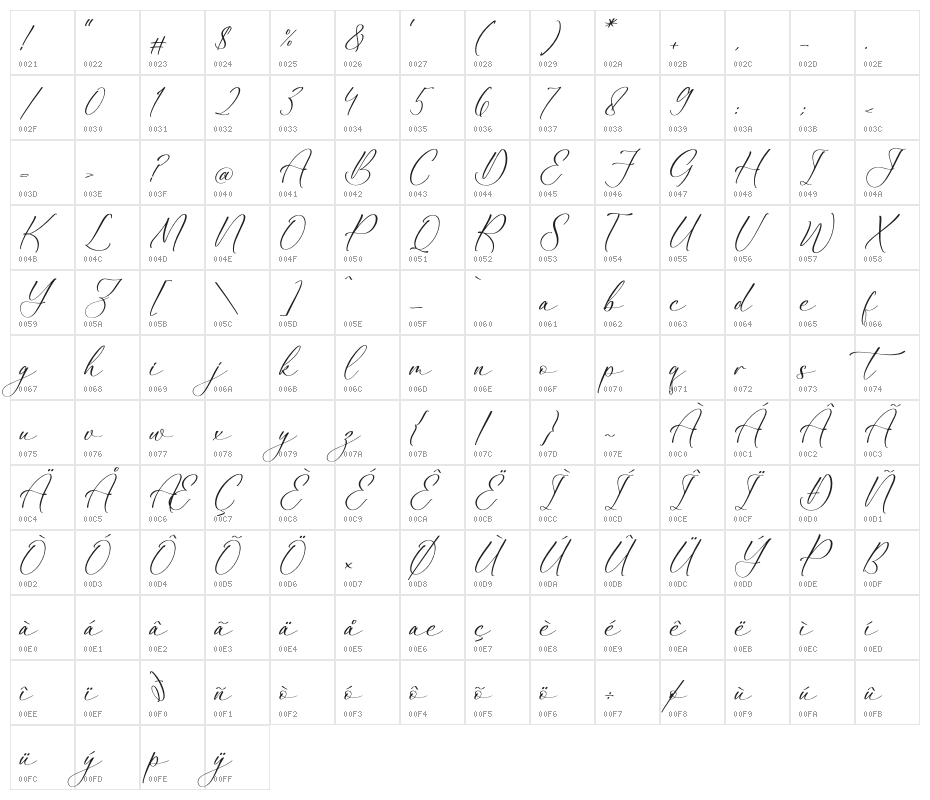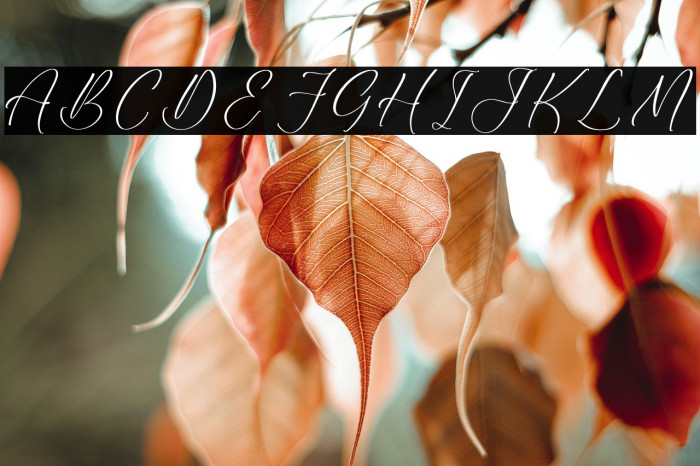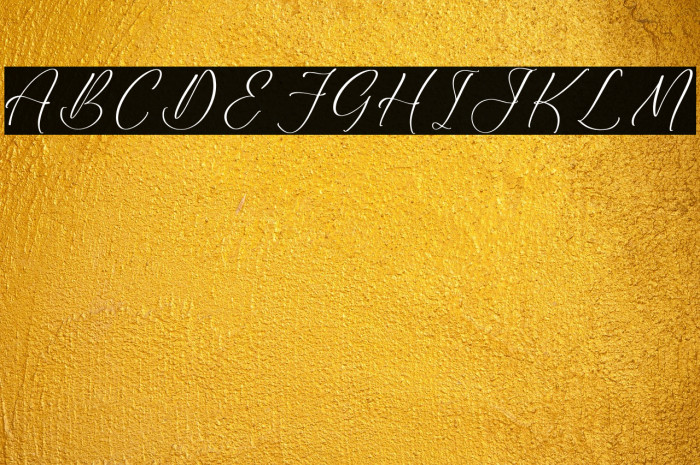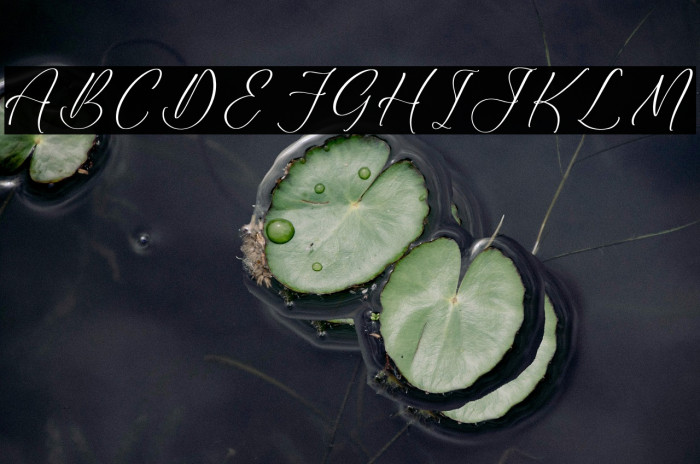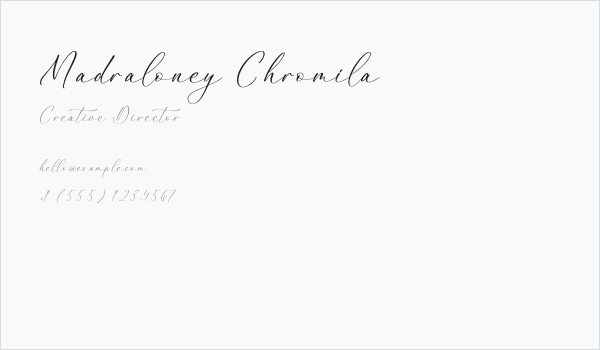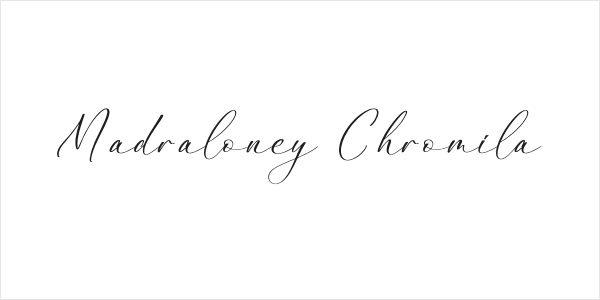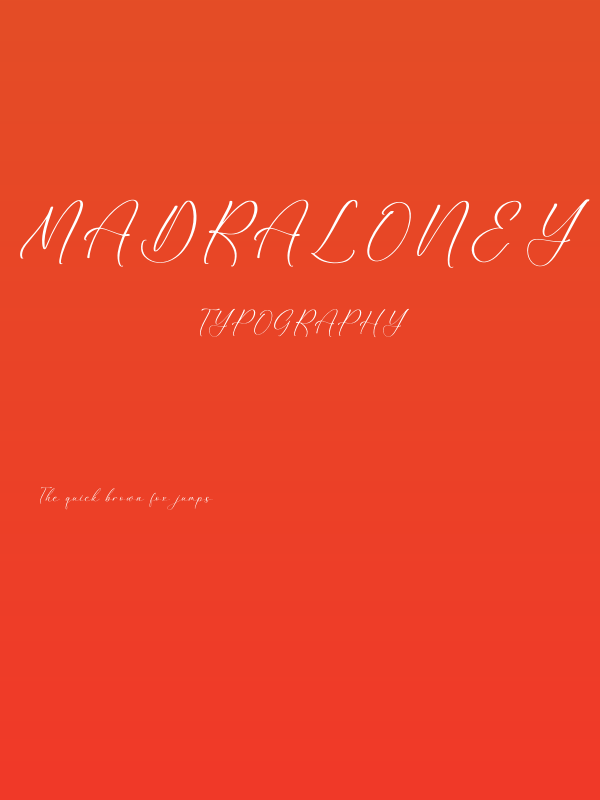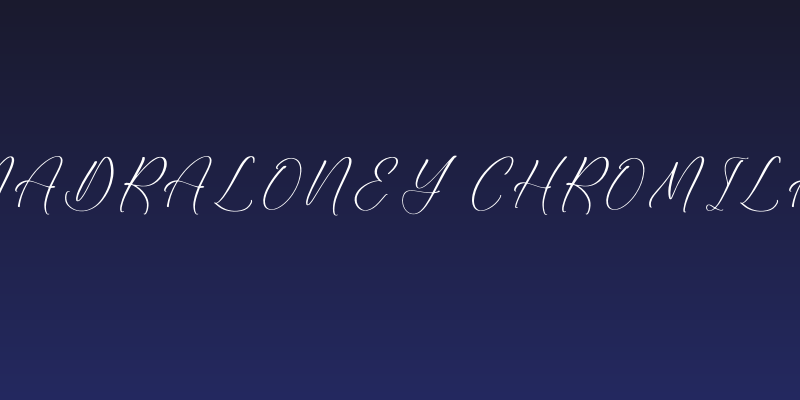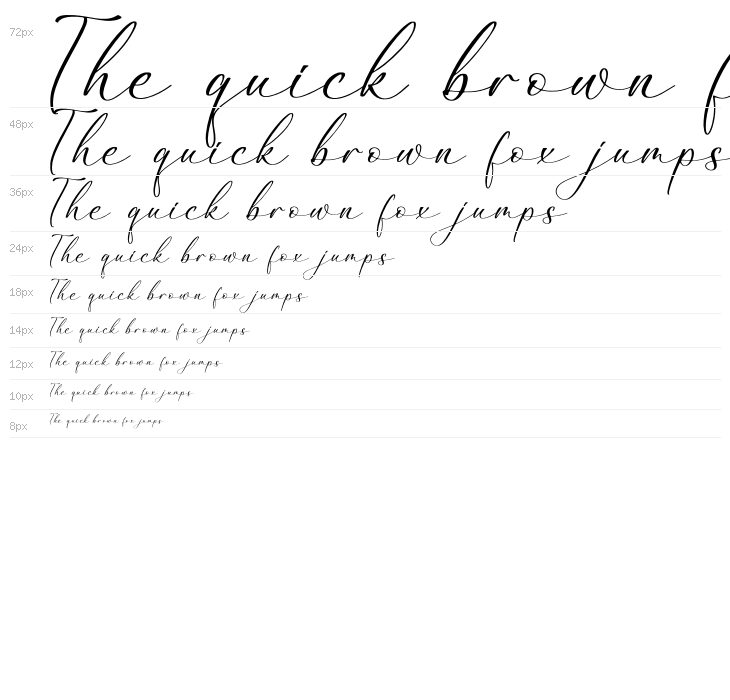
Madraloney Chromila Font
Madraloney Chromila Description
Elegant, flowing script font with thin, delicate strokes and high contrast, featuring connected letterforms and a handwritten, calligraphic style. The uppercase and lowercase letters are both ornate and fluid, with extended ascenders and descenders.
| Overall Style | Decorative, Elegant, Handwritten |
| Use Case | Logos, Invitations, Headlines, Decorative text |
| Proposed Projects | Wedding invitations, greeting cards, branding, elegant packaging, personal signatures. |